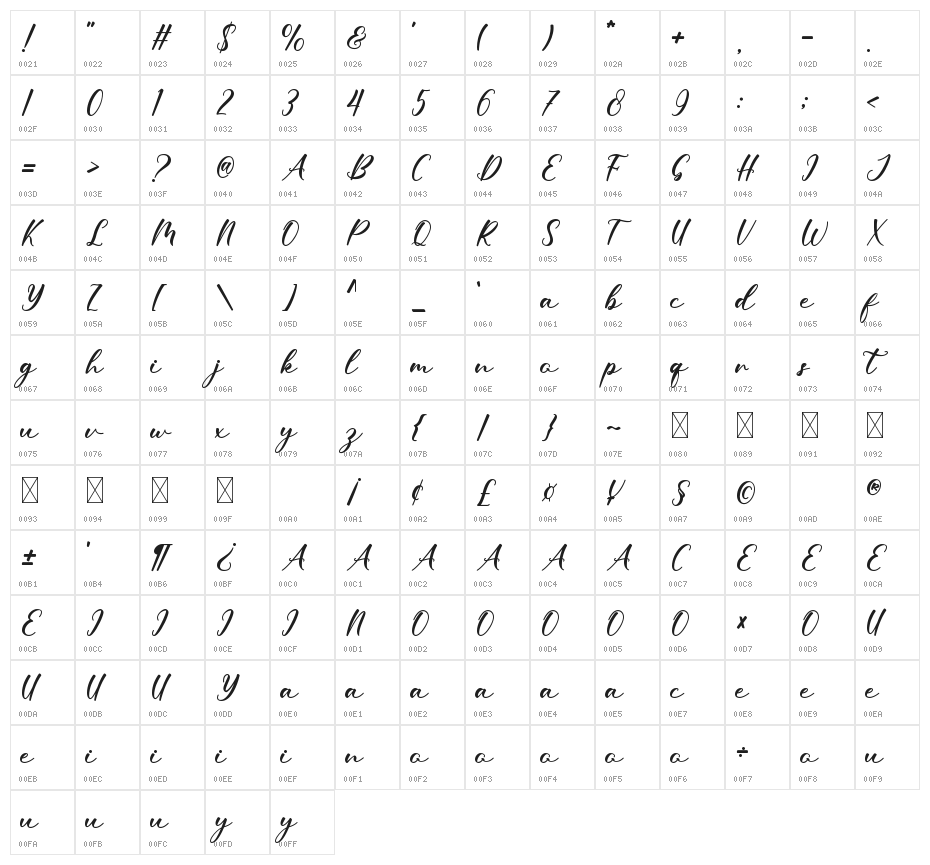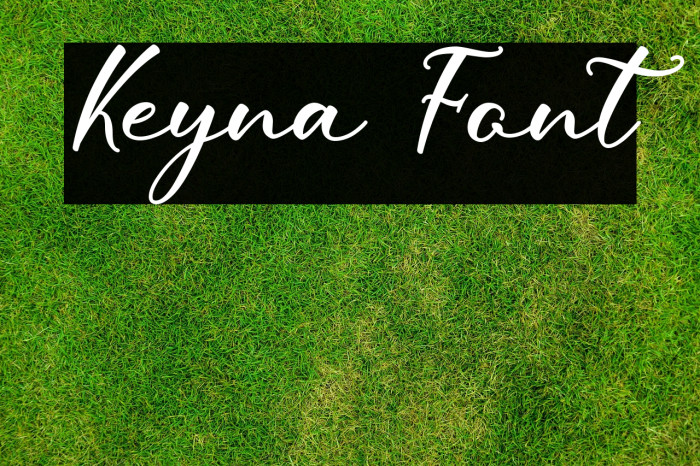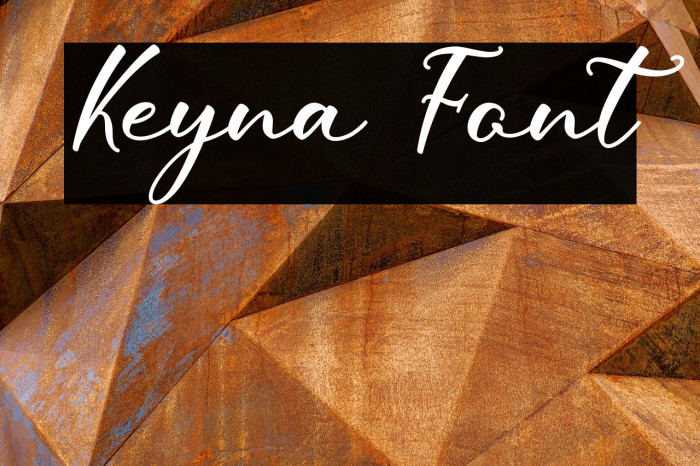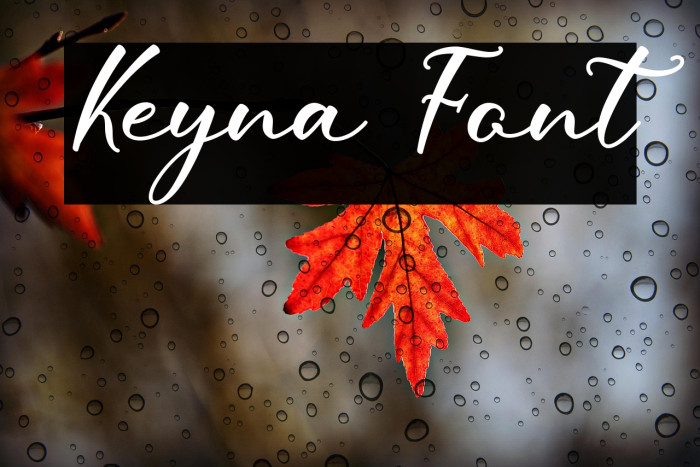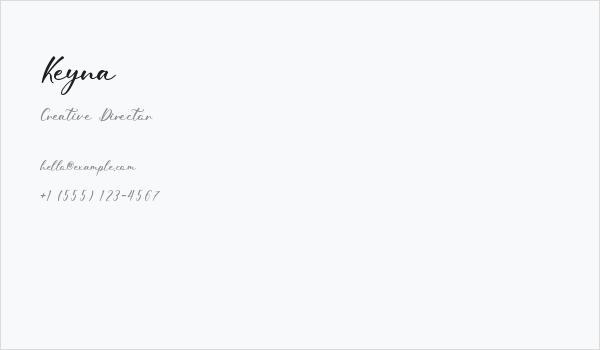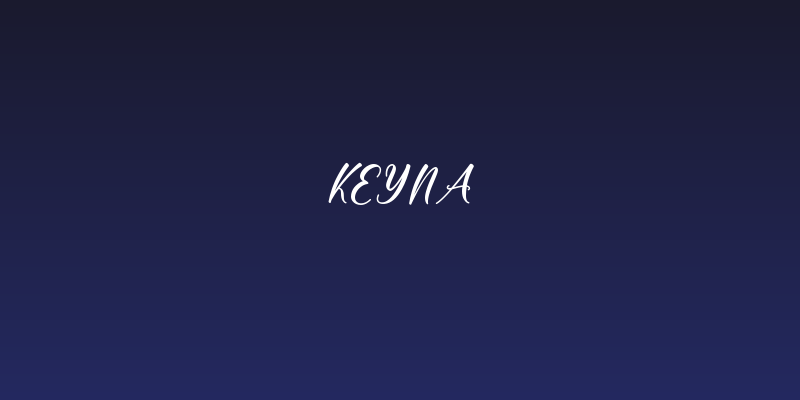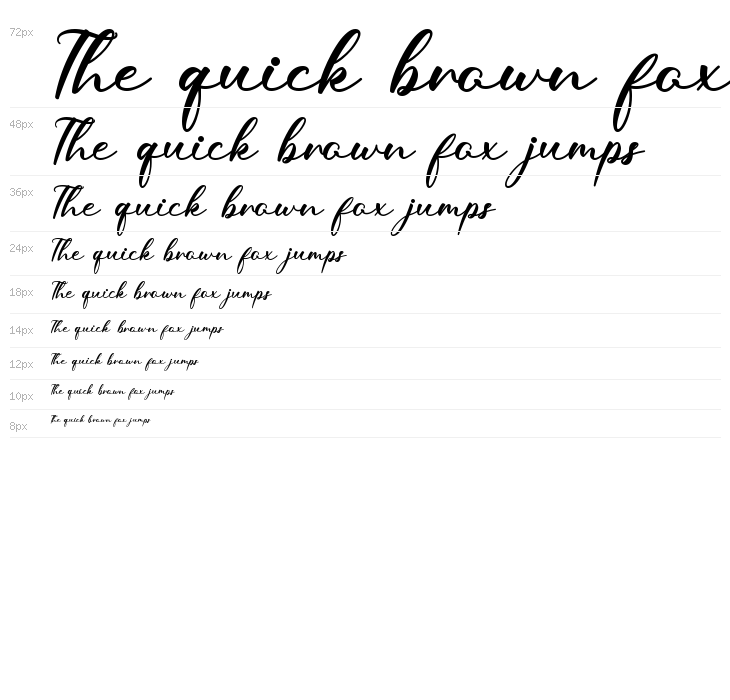
Keyna Font
Keyna Description
This elegant script font features a flowing, cursive style that exudes sophistication and charm. The characters are connected in a fluid manner, giving it a handwritten appearance. The uppercase letters are slightly larger and more pronounced, while the lowercase letters maintain a consistent flow. The numerals and special characters are designed to complement the overall aesthetic, making it versatile for various uses. The font's smooth curves and balanced proportions make it ideal for projects that require a personal touch or a sense of elegance.
| Overall Style | Elegant, Handwritten |
| Proposed Projects | Ideal for wedding invitations, greeting cards, branding, and elegant logo designs. |